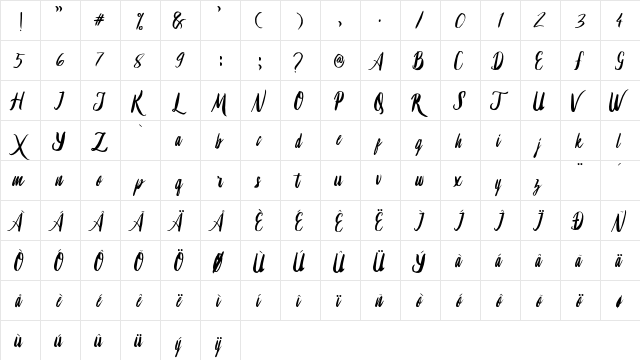
Lambaretta Regular
| Foundry | pathero studio |
| Designer | pathero studio |
Design Context for Lambaretta Typeface
Lambaretta is a composed and adaptable typeface that performs quietly and consistently across a wide range of design contexts.